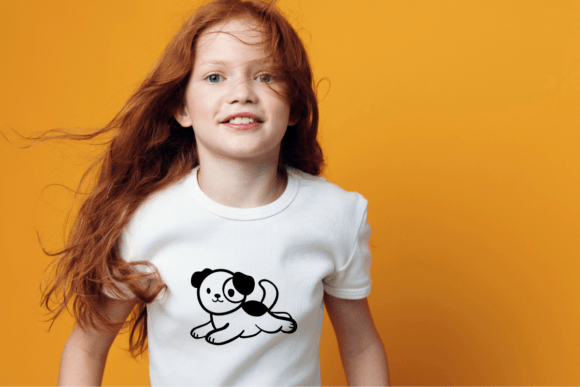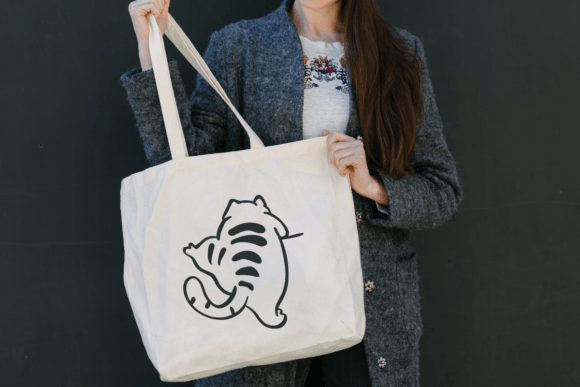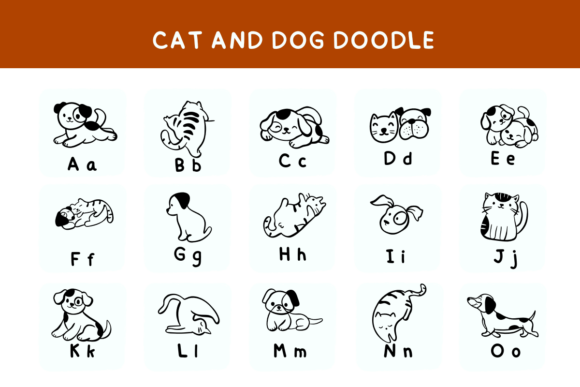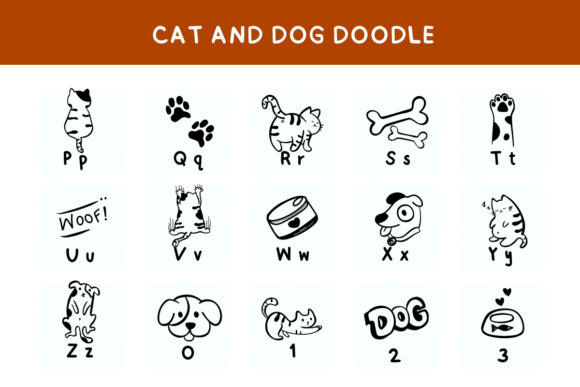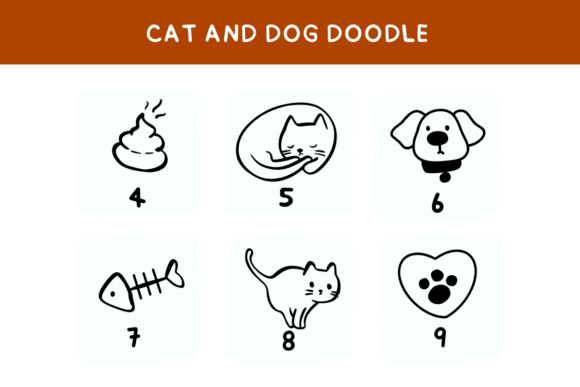
The Purrfect Addition to Your Design Arsenal: Cat and Dog Doodle Font
I’ll never forget the time I was working on a fun project for a client’s pet birthday party invitation. I had all the elements ready – the cute illustrations, the playful colors, and the party details – but something was missing. The font I was using just didn’t have the whimsical touch I needed. That’s when I stumbled upon the Cat and Dog Doodle font. It was love at first sight! 🐾✨
This delightful dingbats font has since become a staple in my design toolkit, and I’m excited to share its charm with you. Whether you’re a designer, crafter, or creative hobbyist, you’ll find the Cat and Dog Doodle font to be a versatile and fun addition to your projects.
An Honest Review: What I Love and What to Keep in Mind
- 🎉 Whimsical and playful: The Cat and Dog Doodle font is perfect for adding a touch of personality to your designs.
- ✅ Easy to use: This font is straightforward to work with, even if you’re not a seasoned designer.
- 📝 Versatile: Use it for notes, diaries, greeting cards, banners, social media posts, and more!
- 👍 Great for kids’ projects: The playful doodles are sure to delight kids and add a fun touch to your designs.
- ⚠️ Limited character set: As a dingbats font, it doesn’t have a full range of alphabets and numbers, so plan your design accordingly.
- ⚠️ Glyphs might not align perfectly: Some glyphs might not line up perfectly, so be prepared to adjust your design.
Imagine a designer who loves pets and doodling. They wanted to create a font that captures the whimsy of drawing while being easy to use for everyone. The Cat and Dog Doodle font was born from this creative vision – a dingbats font that’s both fun and functional.
| Font Name | Cat and Dog Doodle Font |
| Author | Bee piyanuch |
Q: What type of projects can I use the Cat and Dog Doodle font for?
A: You can use it for notes, diaries, greeting cards, banners, social media posts, mugs, cards, shirts, stationery, and more!
Q: Is the Cat and Dog Doodle font suitable for professional designs?
A: Absolutely! Its playful touch can add a unique element to your professional projects, making them stand out.